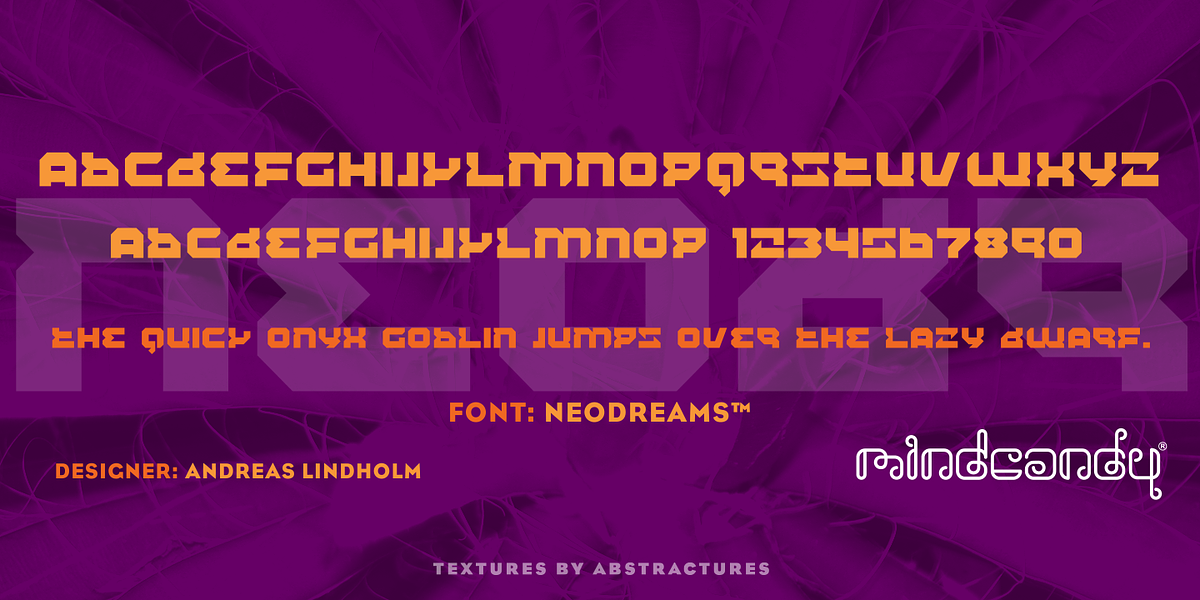
Neodreams™
This font is a bold, all-caps typeface designed for display purposes. Its retro-techno aesthetic makes it suitable for headlines, branding projects, and posters seeking a playful and eye-catching visual impact.